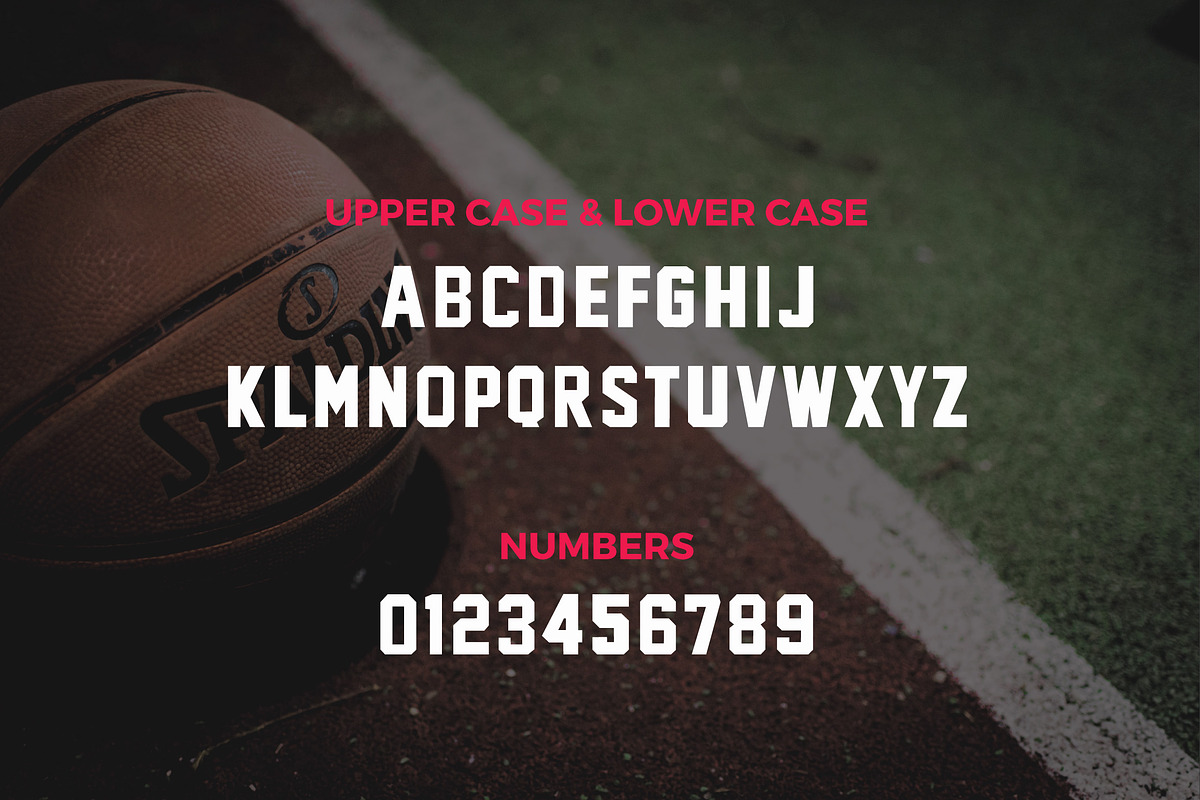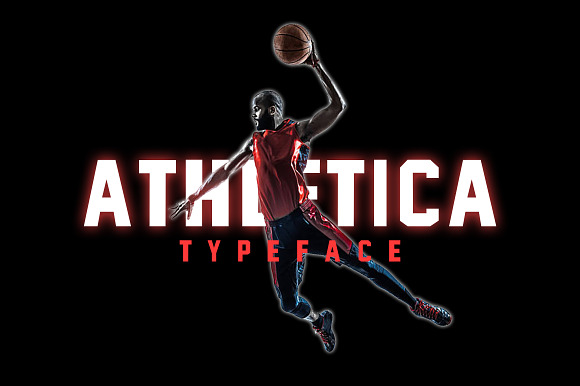
Athletica Sports Premium Font
Athletica is a Sports, Gymnastics, Games, Dance, Swimming & Outdoor and adventurous activities style font. I hope you can create your next amazing project with our font. Please give us your feedback. So that we can improve this font. Athletica Font best uses for headings, Logo type, quotes, apparel design, invitations, flyer, poster, greeting cards, product packaging, book cover, printed quotes, cover album, movie, etc.
Athletica Sports Premium Font by AN Productions fits naturally into Branding, posters, packaging, typography.